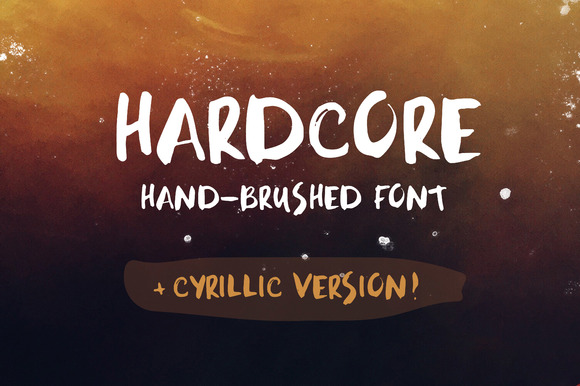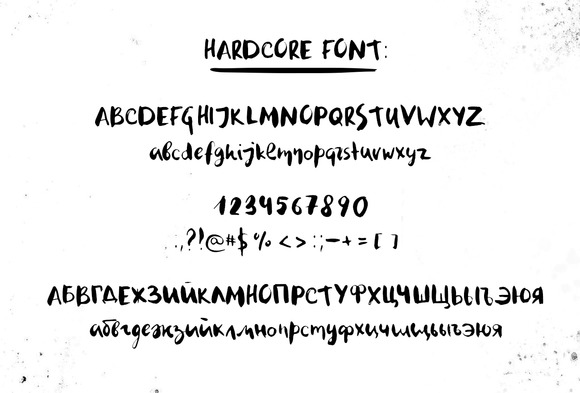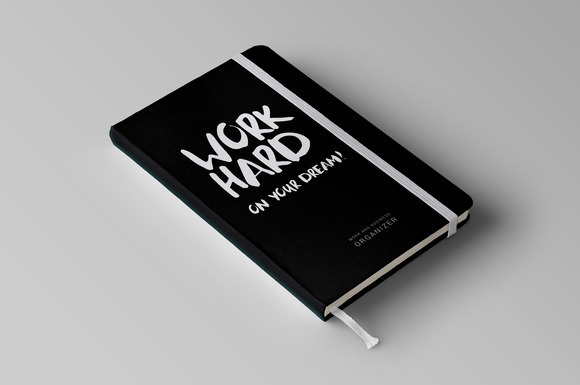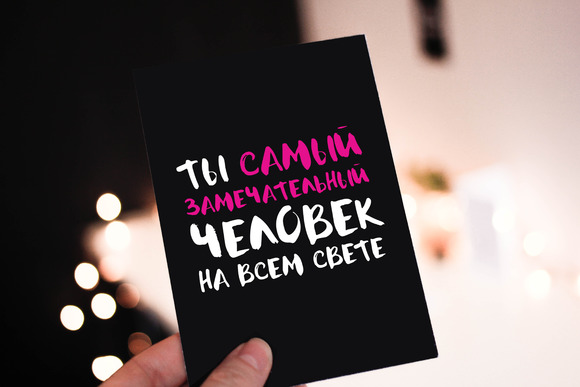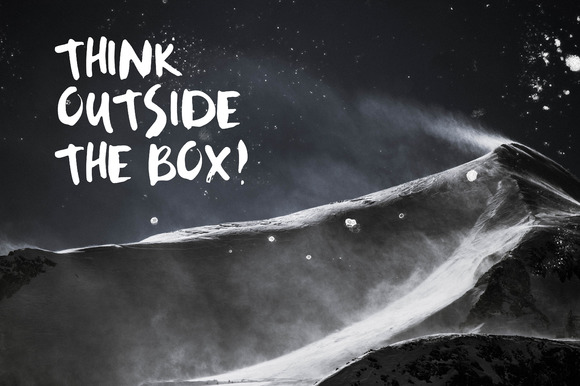
Hardcore Brush Font
Introducing a hand-brushed font, which include Cyrillic version! HARDCORE – a casual, arty hand script consisting of upper and lowercase letters, punctuation and numerals.